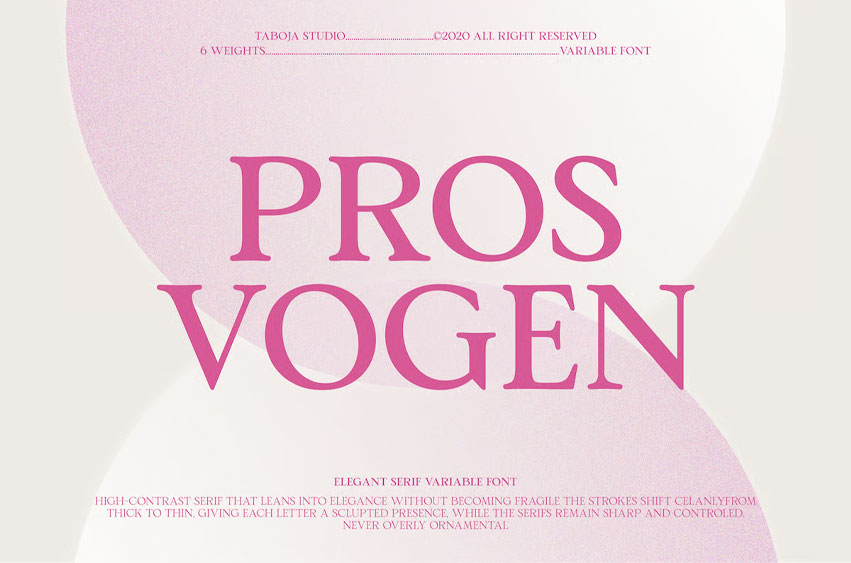
Pros Vogen Font is a modern serif typeface built on classic didone structure, cut for the extreme contrast that premium and editorial design ask for. Its thick stems and hairline strokes sit against a fully vertical axis, giving every curved letterform a static, deliberate precision rather than a humanist lean.
That contrast carries into the detail work. The Q takes a long wave tail past the baseline, the R and K legs curve outward with real movement, and the J closes on a firm ball terminal, giving the capitals a controlled sense of flourish instead of decoration for its own sake. The figures follow the same logic, with sharp expressive curves on 2, 3, 5, and 7 that echo the capitals’ character. Stylistic sets, discretionary ligatures, and stylistic alternates extend that same flexibility across full compositions.
Pros Vogen is built for fashion logos, luxury packaging, editorial headlines, and exclusive invitations, where its hairlines read as intention rather than risk. It’s not built for small body text, where those same hairlines are the first thing to degrade at low resolution.